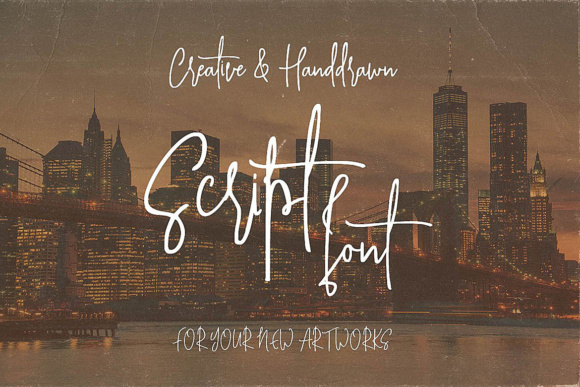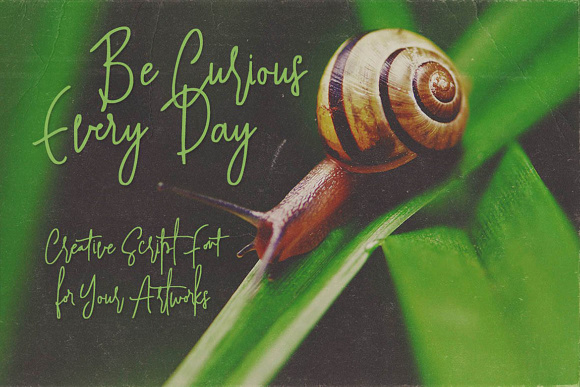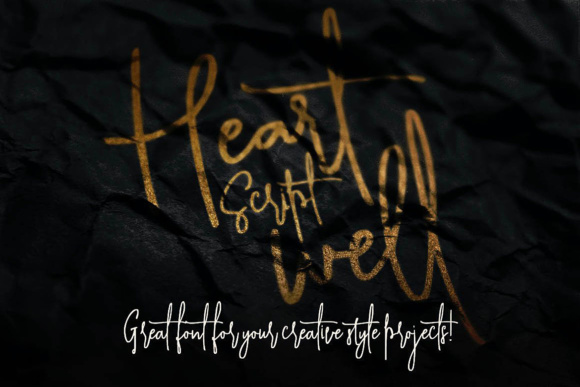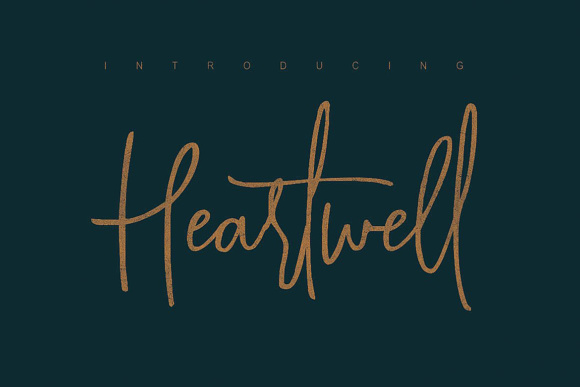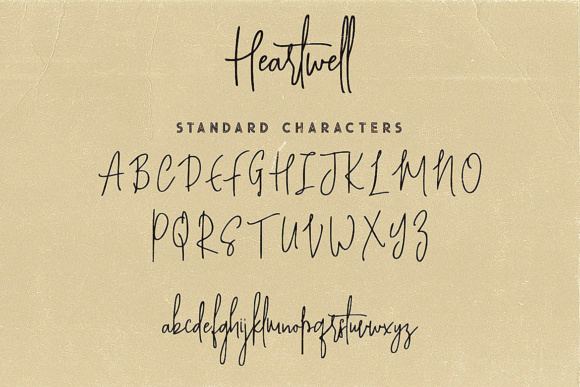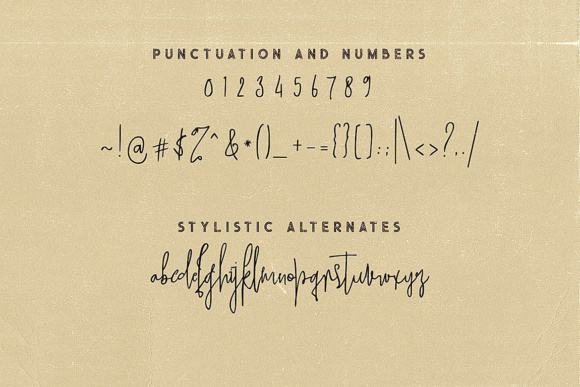
Introducing the Heartwell Script Font: Add a Touch of Whimsy to Your Designs
Are you tired of using the same old fonts in your designs? Do you want to add a touch of personality and whimsy to your projects? Look no further than the Heartwell Script Font. This unique font features a crazy dancing baseline and a handwritten style that’s perfect for making your designs stand out.
What is the Heartwell Script Font?
The Heartwell Script Font is a one-of-a-kind font that’s designed to add a touch of playfulness and creativity to your designs. With its irregular baseline and flowing script style, this font is perfect for designers and crafters who want to add a personal touch to their projects.
Key Features of the Heartwell Script Font
- Crazy Dancing Baseline: The Heartwell Script Font features a unique, irregular baseline that gives it a playful and whimsical feel.
- Handwritten Style: This font has a flowing, handwritten style that’s perfect for adding a personal touch to your designs.
- Perfect for Creative Projects: Whether you’re working on a branding project, a craft project, or just want to add some personality to your digital designs, the Heartwell Script Font is the perfect choice.
Why Use the Heartwell Script Font?
There are many reasons why you should consider using the Heartwell Script Font in your designs. Here are just a few:
- Adds Personality: The Heartwell Script Font is a great way to add a touch of personality and whimsy to your designs.
- Stand Out from the Crowd: With its unique style and irregular baseline, this font is sure to make your designs stand out from the crowd.
- Perfect for Handmade and Craft Projects: The Heartwell Script Font is a great choice for crafters and makers who want to add a personal touch to their projects.
How to Use the Heartwell Script Font
Using the Heartwell Script Font is easy. Here are a few tips to get you started:
- Pair it with a Simple Font: For maximum impact, pair the Heartwell Script Font with a simple, sans-serif font.
- Use it for Headings and Titles: The Heartwell Script Font is perfect for headings and titles, where you want to make a bold statement.
- Experiment with Colors and Textures: Don’t be afraid to experiment with different colors and textures to really make your designs pop.
Who is the Heartwell Script Font for?
The Heartwell Script Font is perfect for:
- Graphic Designers: If you’re a graphic designer looking for a unique font to add to your collection, the Heartwell Script Font is a great choice.
- Crafters and Makers: If you’re a crafter or maker who wants to add a personal touch to your projects, this font is perfect.
- Small Business Owners: If you’re a small business owner looking for a way to differentiate your brand, the Heartwell Script Font is a great option.
The Heartwell Script Font is a unique and versatile font that’s perfect for designers and crafters who want to add a touch of personality and whimsy to their projects. With its crazy dancing baseline and handwritten style, this font is sure to make your designs stand out. So why not give it a try and see the difference it can make?